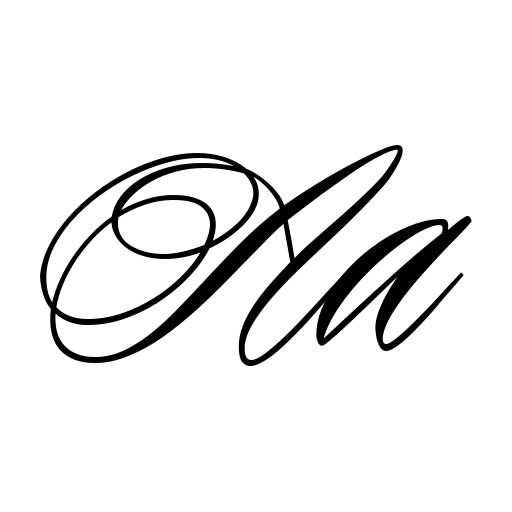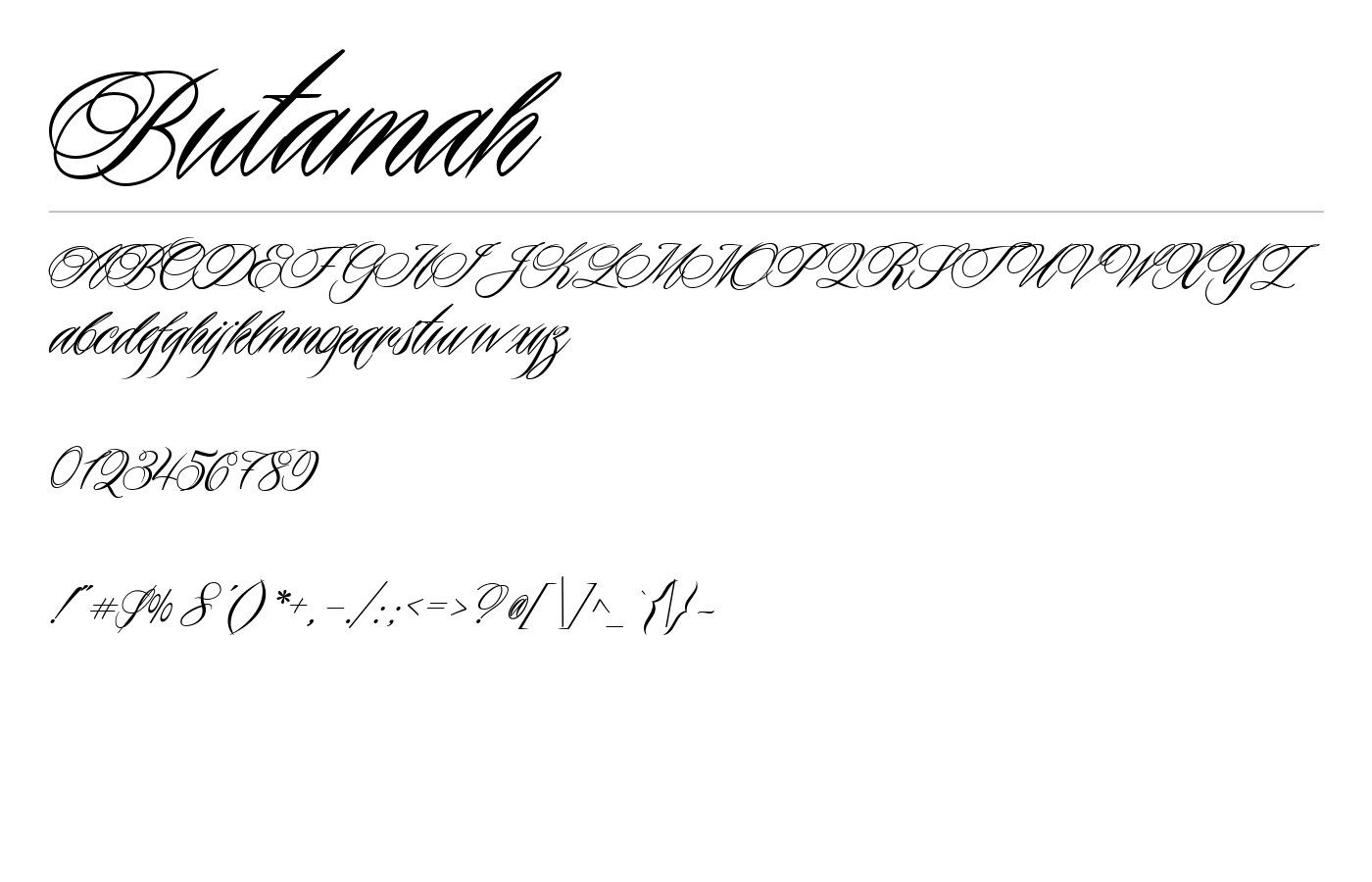
Butamah is a delicate script font characterized by its elegant, flowing strokes and refined calligraphic style. Its thin, high-contrast lines and ornate letterforms create a sophisticated and graceful impression, making it ideal for formal invitations, luxury branding, and elegant editorial headlines. This font conveys a timeless, artistic feel that works beautifully in designs seeking a touch of classic refinement.
Butamah Font
About Butamah Font